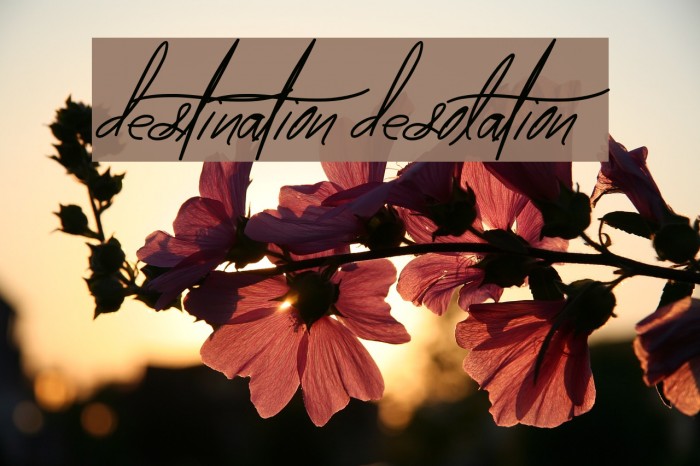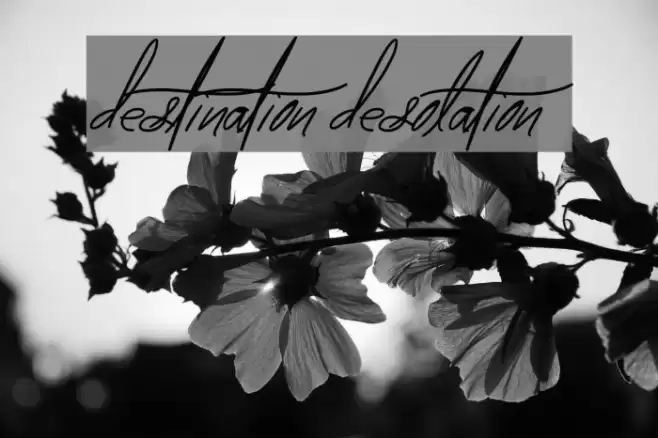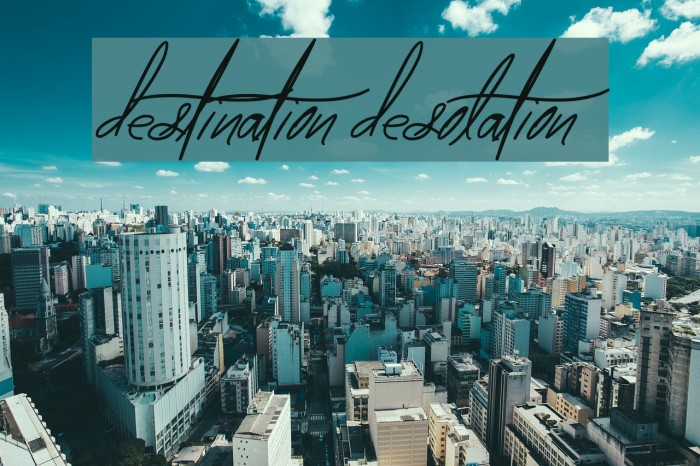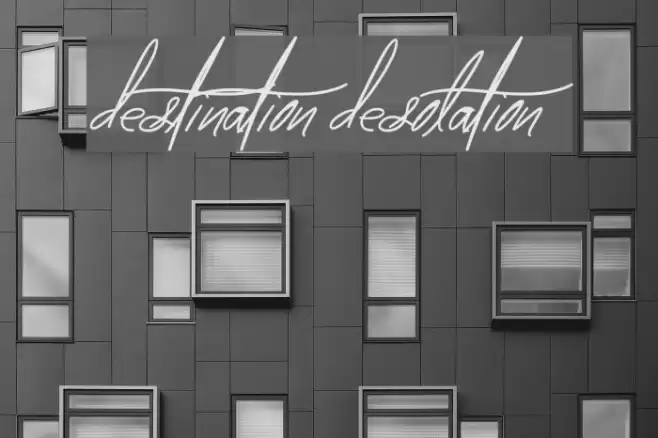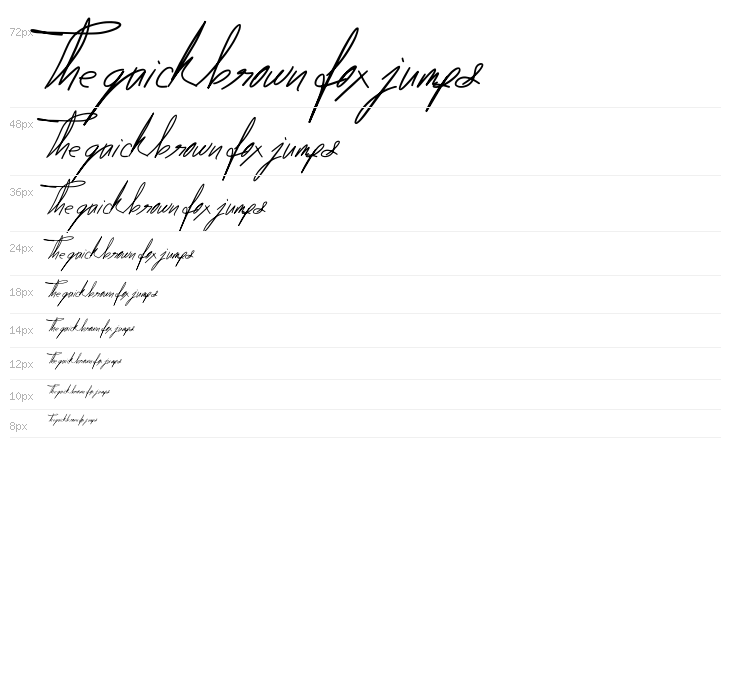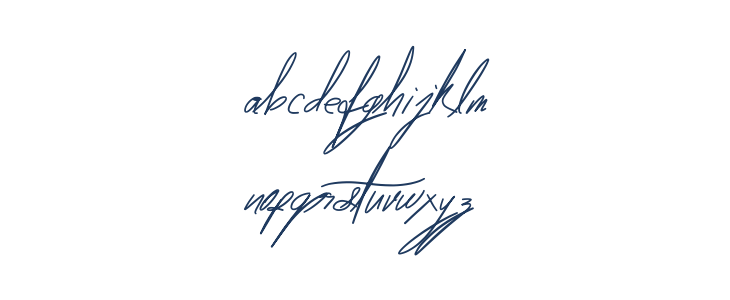
destination desolation Font
destination desolation Description
This font exudes a sense of elegance and fluidity, characterized by its cursive, handwritten style. The letters are connected with smooth, flowing strokes that mimic the natural movement of handwriting. The uppercase letters are distinct with an artistic flair, while the lowercase letters maintain a consistent rhythm and balance. The font's overall appearance is sophisticated and personal, making it suitable for projects that require a touch of elegance and individuality. Its unique style can add a personal touch to invitations, greeting cards, and branding materials.
| Overall Style | Elegant, Personal |
| Use Case | Invitations, Personal branding, Artistic projects |
| Proposed Projects | Ideal for wedding invitations, personal branding, greeting cards, and artistic projects. |